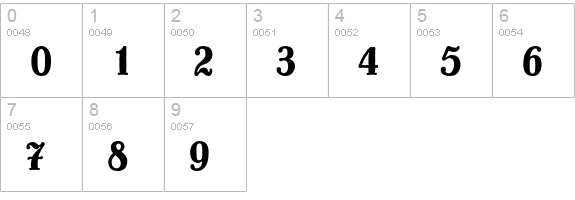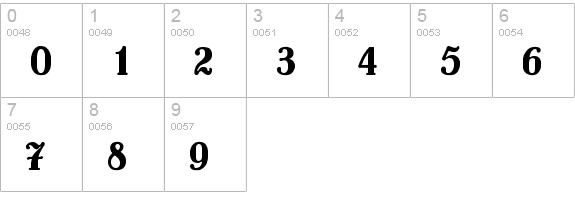
Lo-Type BQ Regular is the standard, neutral variant in the Lo typeface family \xE2\x80\x94 well suited to general body text, paragraphs, and standard typographic work.
Lo-Type BQ Regular font is a modern and versatile typeface that combines sleek lines with a touch of elegance. The clean and stylish design of this font makes it perfect for a wide range of projects, from branding to editorial design. Its unique letterforms and balanced proportions give a contemporary and sophisticated look to any text. What sets Lo-Type BQ Regular font apart is that it is freely available to download at FontsMarket.com, making it accessible to designers and creatives looking for a high-quality typeface without breaking the bank. Whether you're working on a website, a poster, a logo, or any other design project, Lo-Type BQ Regular font will elevate your work with its timeless aesthetic and modern appeal. Download it today and add a touch of class to your next project!